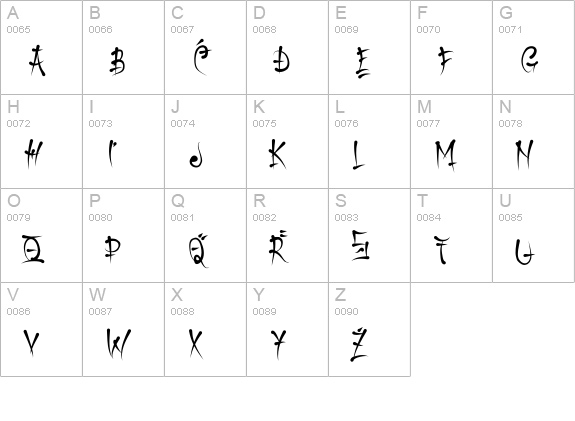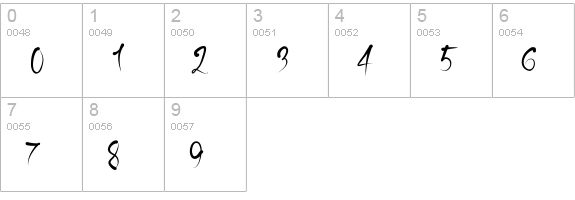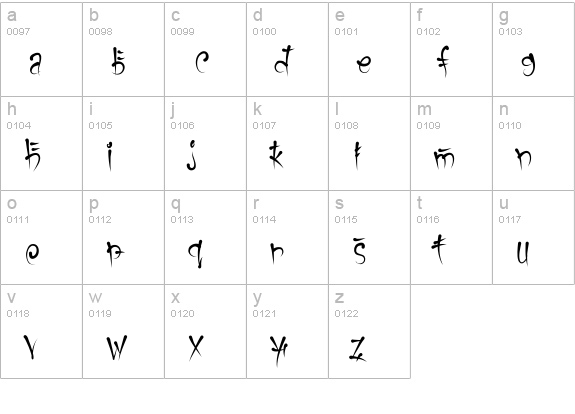
Keetano Gaijin Font Details
Introducing Keetano Gaijin font, a unique and stylish typeface that combines modern design with traditional elements. This font exudes a sense of creativity and originality, making it perfect for a wide range of design projects. With its bold and eye-catching appearance, Keetano Gaijin font is sure to make a statement in any context. Whether used for branding, advertising, or editorial design, this font will add a touch of sophistication and elegance to your creations. What makes Keetano Gaijin font even more appealing is that it is completely free to download. Yes, you read that right - this stunning font is available for free at FontsMarket.com. Simply head over to the website and start using this beautiful typeface in your projects today. Don't miss out on the opportunity to enhance your designs with the striking Keetano Gaijin font. Download it now and let your creativity shine!